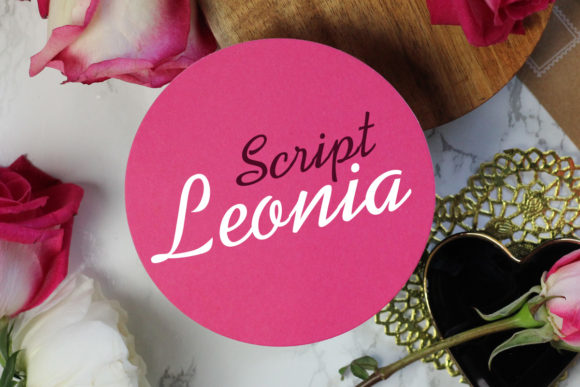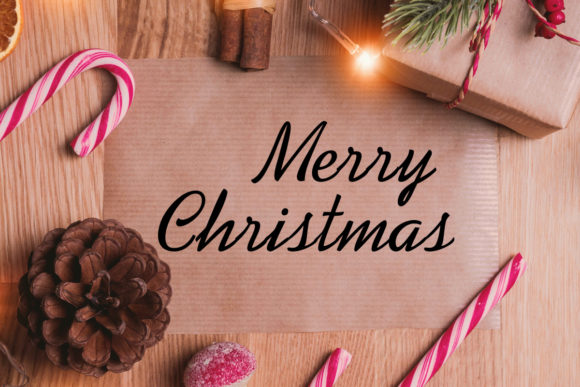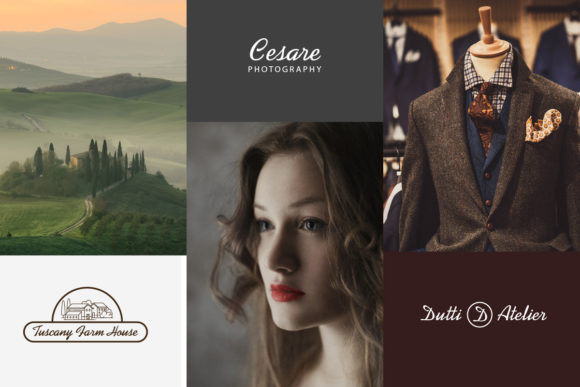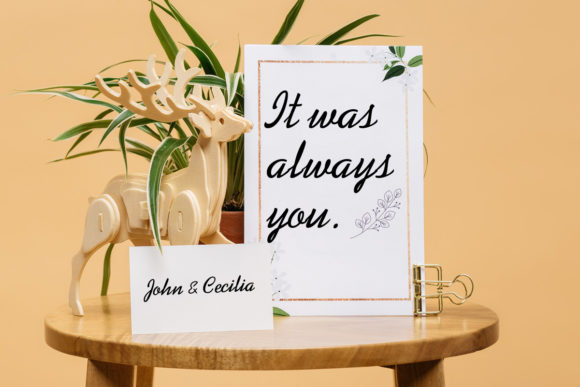
About Leonia Font
Leonia is a cute and elegant handwritten font. This font can be used as headline, poster, wedding invitations, business cards, and logo as well.